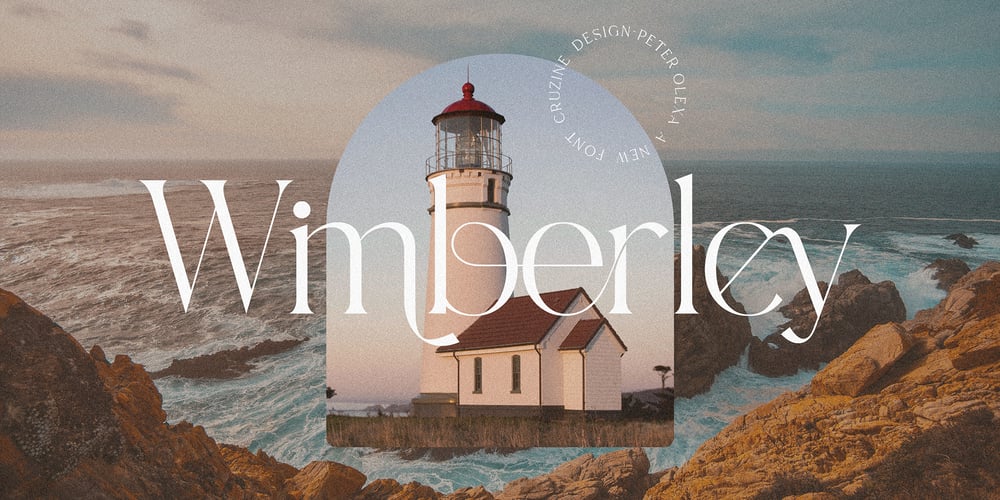
Wimberley Font Family was designed by Peter Olexa and published by Deeezy. Wimberley contains 1 styles and family package options. Trendy, classy & modern style serif font for your fancy projects. Elegant, fashion and classic style on Wimberley font will be great for any branding project. Lot of alternates and ligatures will help you to create unique and original logo design or website header! Enjoy ๐ Multilingual support Lot of alternate characters Lot of ligatures Web font Great for modern branding projects!